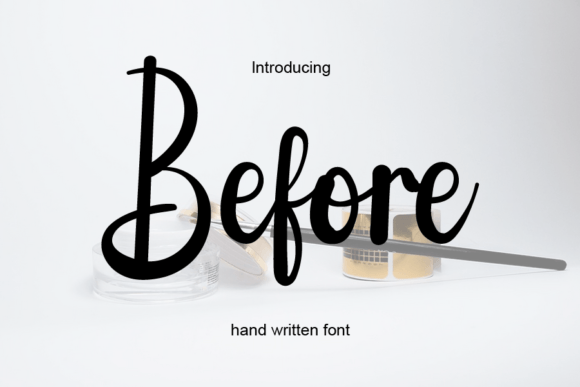
Get ready to fall head over heels with Before, an exquisite handwritten font that will elevate your digital designs to unparalleled heights. Its enchanting style, crafted with an elegant flair, is a true masterpiece that breathes life into your creations.
Immerse yourself in the timeless allure of Before, a font that exudes sophistication and character. Its meticulously crafted glyphs dance across the screen with a captivating rhythm, inviting you to unleash your creativity. Whether you're crafting heartfelt wedding invitations, captivating social media posts, or designing stunning branding materials, Before is your perfect companion.
Before's versatility knows no bounds. Its graceful curves and flowing strokes lend themselves effortlessly to a myriad of projects, from whimsical invitations to elegant logos. Let Before become your secret weapon for creating designs that leave an unforgettable impression.
Don't settle for ordinary when you can have extraordinary. Choose Before today and unlock a world of design possibilities. Its timeless beauty and versatility will empower you to create captivating visuals that will make your projects shine brighter than ever before.
So, whether you're a seasoned designer or just starting your creative journey, Before is the perfect choice for adding a touch of magic to your work. Let its elegant strokes ignite your imagination and guide you towards design brilliance.